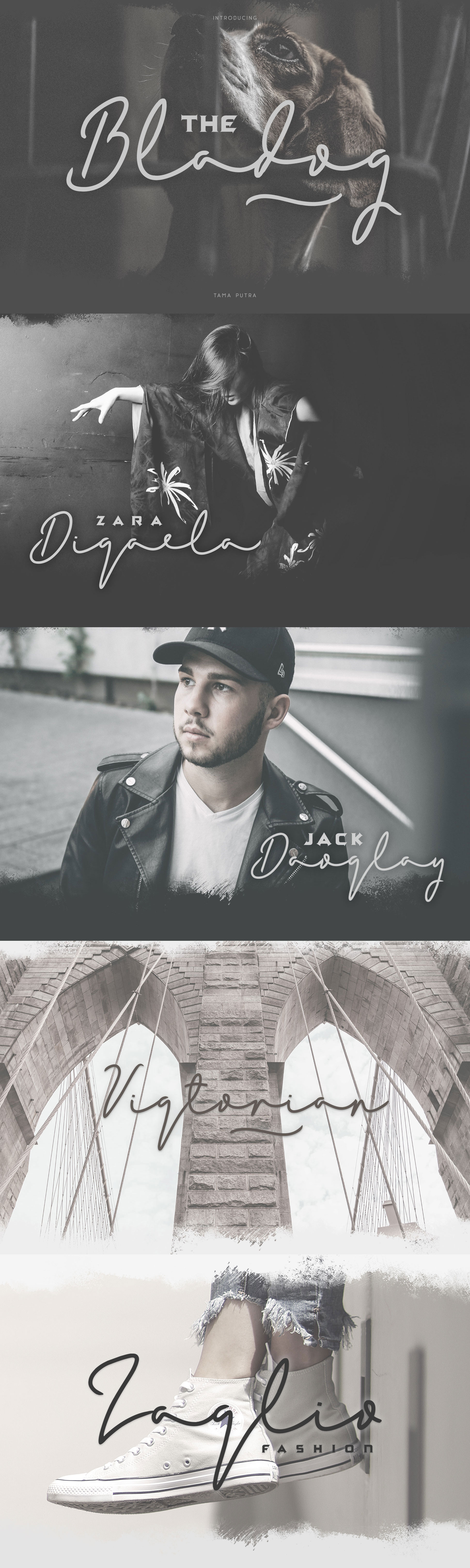
Bladog Font Duo
Bladog is a handwritten script and display font duo. It is suitable for any design needs, branding, cover title, t-shirts, posters and more.
It includes multi-lingual and currency support, numerals, and punctuation. It comes comes with stylistic alternates & contextual alternates.
- Character Set A-Z (Uppercase & Lowercase)
- Stylistic Alternates & Contextual Alternates
Bladog is suitable font for creating beautiful things and many creative work.